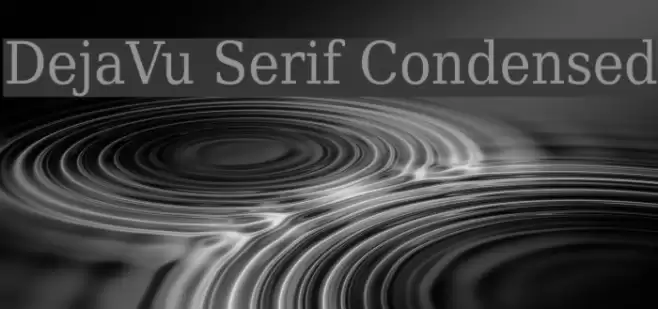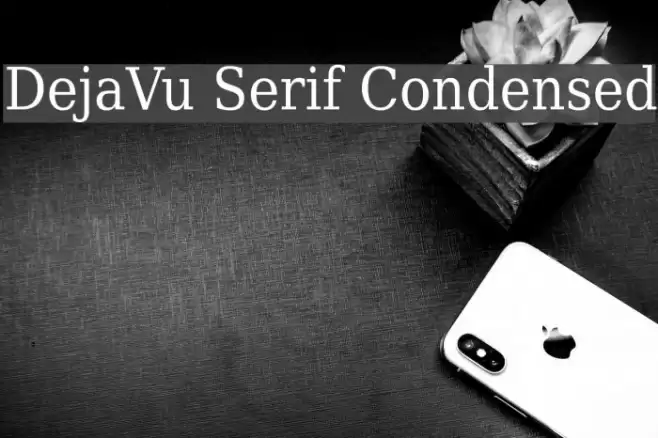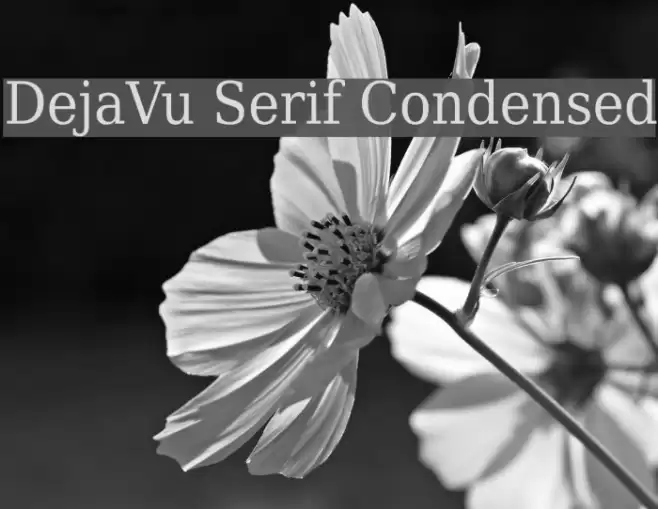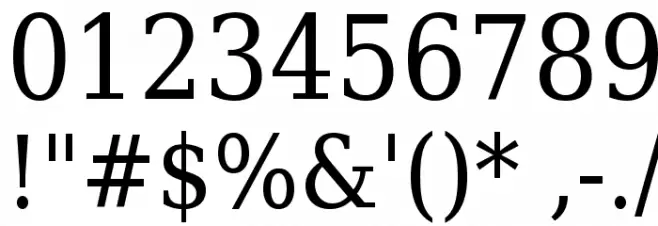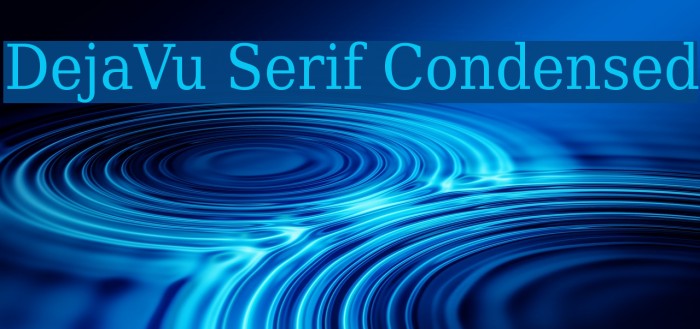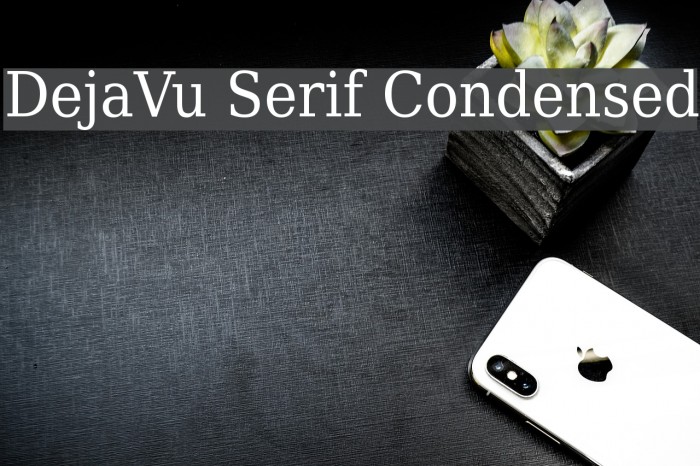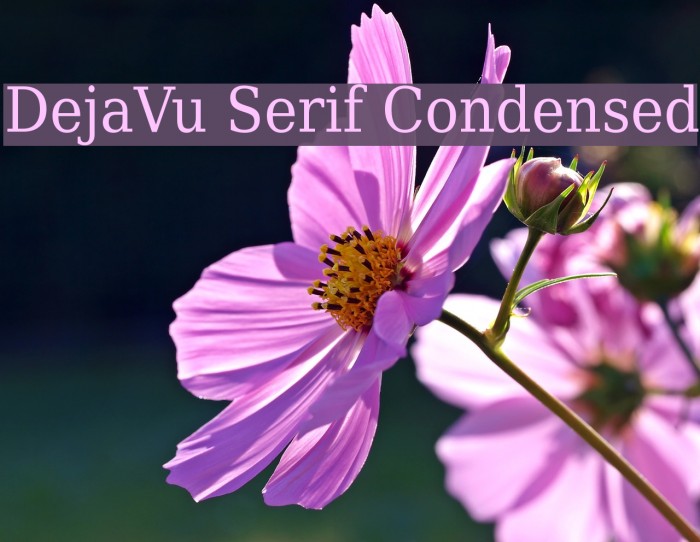
DejaVu Serif Condensed Font
DejaVu Serif Condensed Description
This font features a classic serif style with condensed proportions, offering a sophisticated and elegant appearance. The serifs are well-defined, providing a traditional look that enhances readability. The uppercase letters are tall and commanding, while the lowercase letters maintain a balanced and harmonious flow. The numerals are clear and distinct, ensuring legibility in various contexts. Special characters are thoughtfully designed, maintaining consistency with the overall aesthetic. This font is versatile, suitable for both digital and print media, and can be used in a variety of design projects.
A classic serif font with condensed proportions and elegant serifs from Uncategorized fonts.
- Proposed Projects: Ideal for editorial design, book covers, formal invitations, and branding projects.
- Overall Style: Classic